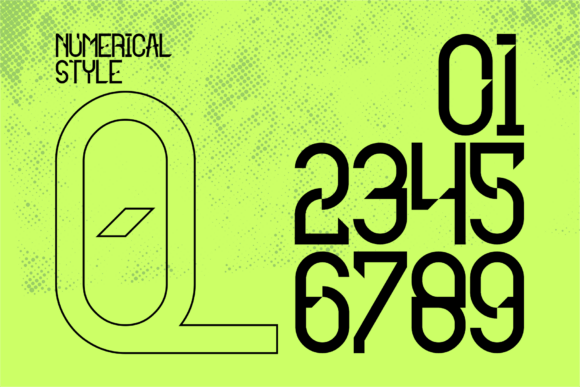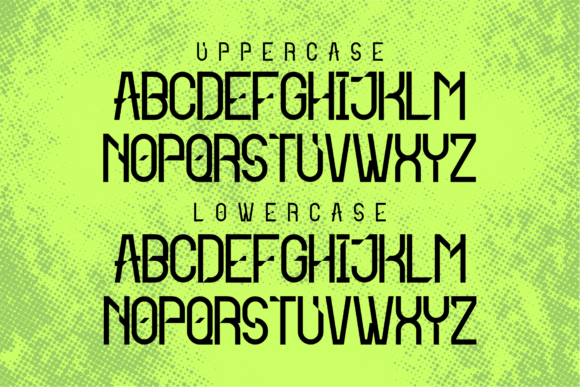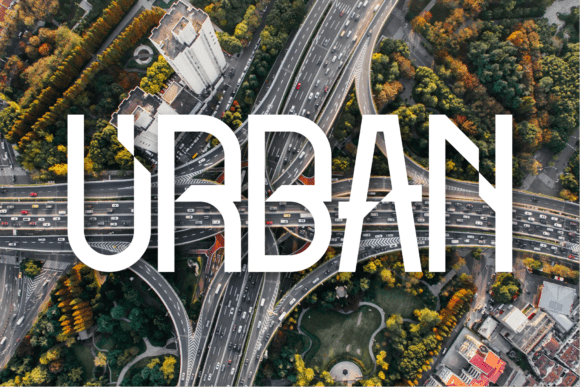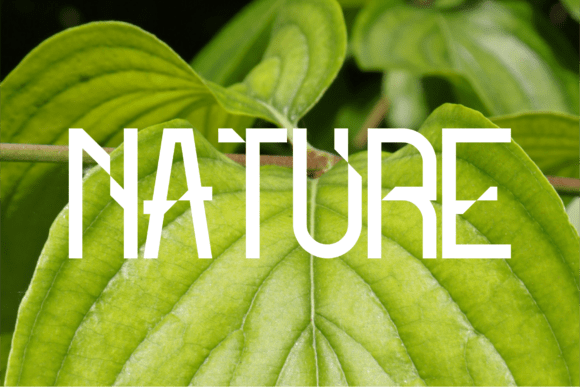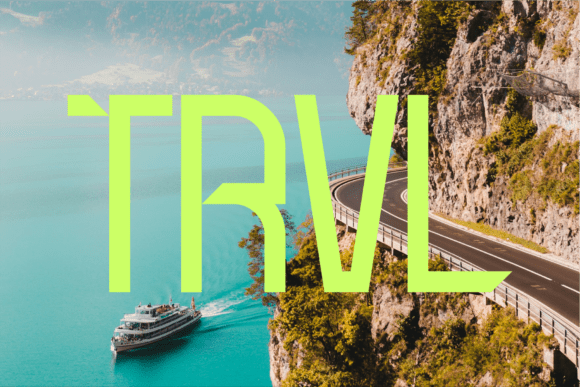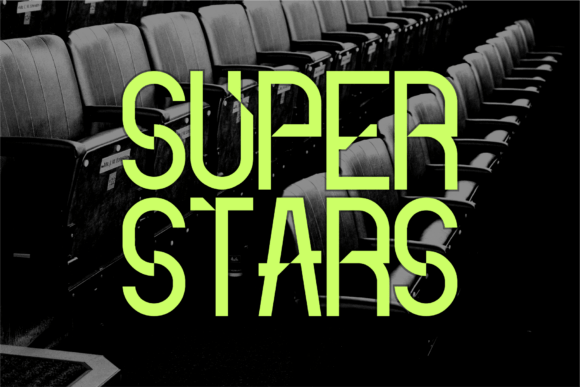
Introduction to Redvice Font
As designers, we’ve all had that moment when we’re brainstorming ideas for a new project, and the perfect font suddenly pops into our minds. For many of us, that moment was inspired by the sleek, high-quality typography found on professional sports jerseys. Today, we’re going to explore a font that captures that same essence: the Redvice Font.
Designed to evoke a sense of strength and athleticism, the Redvice Font is a modern display font that’s perfect for any project that requires a competitive and professional visual style. With its lightweight yet powerful character, this font is ideal for designers who want to add a touch of sportsmanship to their creative project without sacrificing readability.
Key Features of Redvice Font
- High-quality design: The Redvice Font offers a unique and stylish design that is perfect for creative projects.
- Transparent background: This font features a transparent background, making it ideal for use with images and other design elements.
- High-resolution design: The Redvice Font is designed at a high resolution of 300 DPI, making it suitable for use in large-scale designs and prints.
- Perfect for creative projects: The Redvice Font is a versatile design resource that is perfect for use in a wide range of creative projects, from logos and branding to graphics and typography.
- Unique characteristics: The Redvice Font features a unique and stylish design that sets it apart from other fonts, making it a great addition to any design collection.
Honest Review: Redvice Font
I recently came across the Redvice Font, and I must say it’s a high-quality addition to any design resource library. As a designer, I’m always on the lookout for fresh and unique fonts to elevate my creative projects. The Redvice Font definitely delivers.
- ✨ What works well: The font’s bold and modern aesthetic makes it perfect for headings and titles. The transparent background also allows for seamless integration with any design element.
- ✨ What works well: The font’s versatility makes it suitable for a wide range of creative projects, from graphic design to web development.
However, I do have a few concerns about the font’s limitations:
- ⚠️ Limitations: The font’s bold weight can sometimes make it difficult to read in smaller sizes. It’s essential to use it judiciously and in conjunction with other fonts for a balanced look.
- ⚠️ Limitations: The font’s transparent background can sometimes make it difficult to use in designs with busy backgrounds.
Overall, the Redvice Font is a fantastic addition to any design library. While it has some limitations, its high-quality design and versatility make it an excellent choice for designers looking to elevate their creative projects.
Tips for Getting the Most Out of Redvice Font
For a transparent background, use the font on a light-colored background or apply a texture to give it a unique look. Experiment with different font sizes and styles to create visual interest. Use the font in combination with other design elements, such as images and graphics, to enhance your creative project.
The Redvice Font is ideal for various design projects, including social media graphics, presentations, reports, documents, and illustrations. Its high-quality design and transparent background make it a versatile resource for creative professionals and hobbyists alike.
Does the Redvice Font have a transparent background?
Yes, the Redvice Font has a transparent background, making it perfect for use on images or designs with complex backgrounds. The transparent background allows the font to blend seamlessly with your design, creating a clean and professional look.